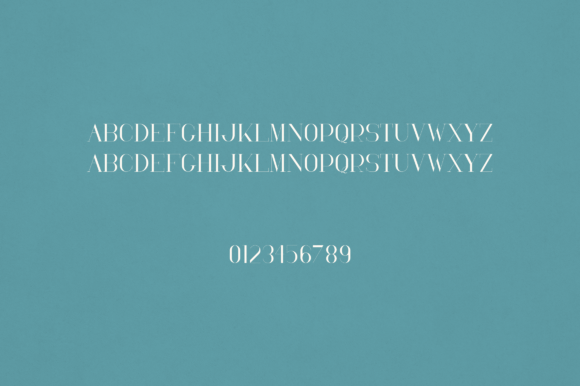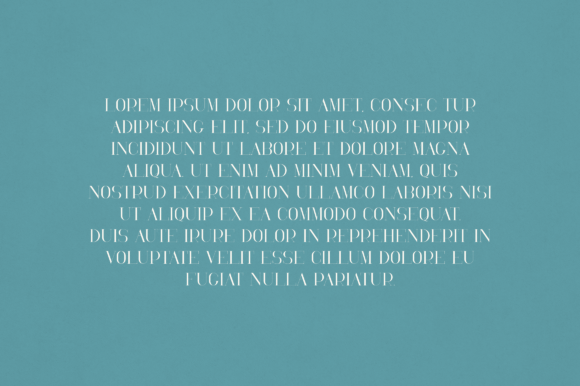
The Designer’s Delight: Unveiling the Elegance of Denali Font
I’ll never forget the time I was working on a branding project for a luxury home goods client. I had spent hours agonizing over the perfect logo design, but something was missing. The typography just wasn’t quite right. I scoured font libraries, but nothing seemed to capture the essence of elegance and sophistication I was looking for. That’s when I stumbled upon Denali Font. It was love at first sight! 💫
What I Love About Denali Font
- ✨ Elegant and versatile serif design that adds a touch of sophistication to any project
- ✅ Wide range of applications, from logos and branding to headlines and plain text
- 💡 Perfect for creating visually appealing magazine headers, product packaging, and home-ware designs
- 🔥 Stunning OpenType features, glyphs, and stylistic alternates for added creativity
While Denali Font is an exceptional choice, there are a few minor quirks to consider:
- 🤔 Some users may find the font’s elegance and sophistication limiting for very casual or playful projects
- ⚠️ Occasional issues with kerning and spacing, particularly with certain character combinations
The Story Behind Denali Font
Denali Font was inspired by the breathtaking landscapes of Alaska’s Denali National Park. The font’s creator, a type designer with a passion for nature and elegance, sought to capture the essence of the wild and free in a sophisticated, refined typeface. The result is a font that exudes luxury, sophistication, and creativity.
Q: What makes Denali Font so versatile?
A: Denali Font’s versatility stems from its elegant serif design, wide range of OpenType features, and carefully crafted glyphs and stylistic alternates.
Q: Is Denali Font suitable for body text and long-form content?
A: While Denali Font is elegant and refined, it may not be the best choice for body text and long-form content. Consider using a font like Merriweather or Georgia for such applications.